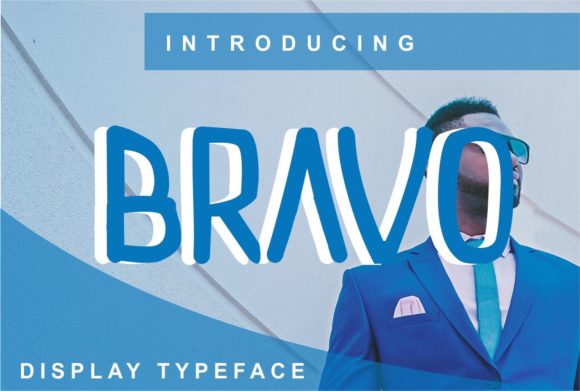
The Designer’s Delight: A Deep Dive into the Bravo Font
I’ll never forget the time I was working on a branding project for a trendy coffee shop. My client wanted a font that was both modern and elegant, but I was struggling to find the perfect fit. That’s when I stumbled upon the Bravo font, and it instantly became the star of the show. With its adaptable and trendy display style, Bravo has the potential to elevate any creation, making it an incredible asset to your font library.
What I Love About Bravo Font
- ✨ Versatility: Bravo is incredibly versatile, making it perfect for a wide range of design projects, from logos and posters to social media graphics and more.
- ✅ Elegant and Modern: The font’s sleek lines and curves give it a sophisticated, modern feel that’s sure to impress.
- 💡 OpenType Features: Bravo comes with a range of OpenType features, including stylistic alternates, ligatures, and more, giving you plenty of creative options.
While Bravo is an amazing font, there are a few things to keep in mind. For example:
- 🤔 Legibility at Small Sizes: While Bravo is stunning at larger sizes, it can become a bit tricky to read at smaller sizes. Be sure to test it out before committing to a specific use case.
- ⚠️ Limited Use in Body Text: Due to its display nature, Bravo might not be the best choice for lengthy body text. Stick to headlines, titles, and short paragraphs for maximum impact.
The Story Behind Bravo Font
Bravo was designed with the modern designer in mind. Its creator, a talented typographer, aimed to craft a font that was both trendy and timeless. Inspired by the world of fashion and luxury, Bravo is the perfect blend of style and sophistication.
Q: What type of projects is Bravo best suited for?
A: Bravo is perfect for display text, headings, and titles. It’s ideal for branding projects, posters, social media graphics, and more.
Q: Does Bravo support OpenType features?
A: Yes, Bravo comes with a range of OpenType features, including stylistic alternates, ligatures, and more.